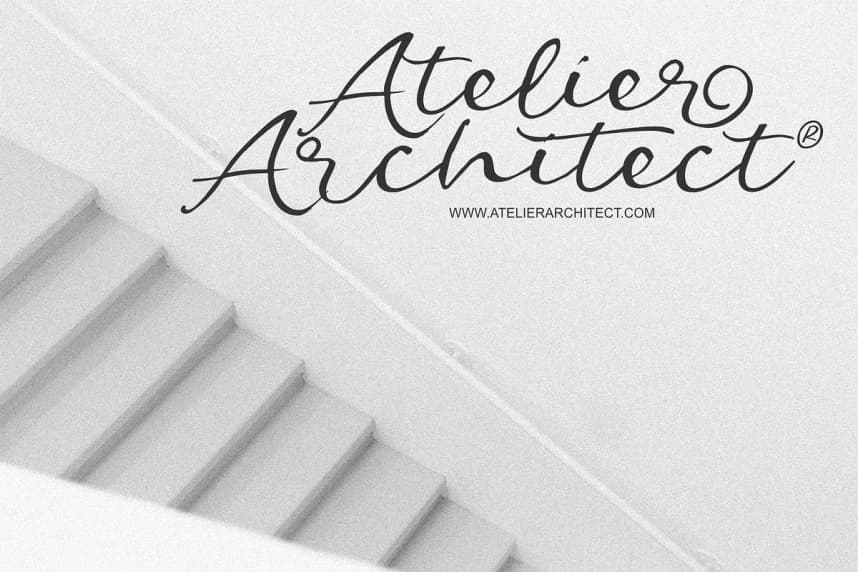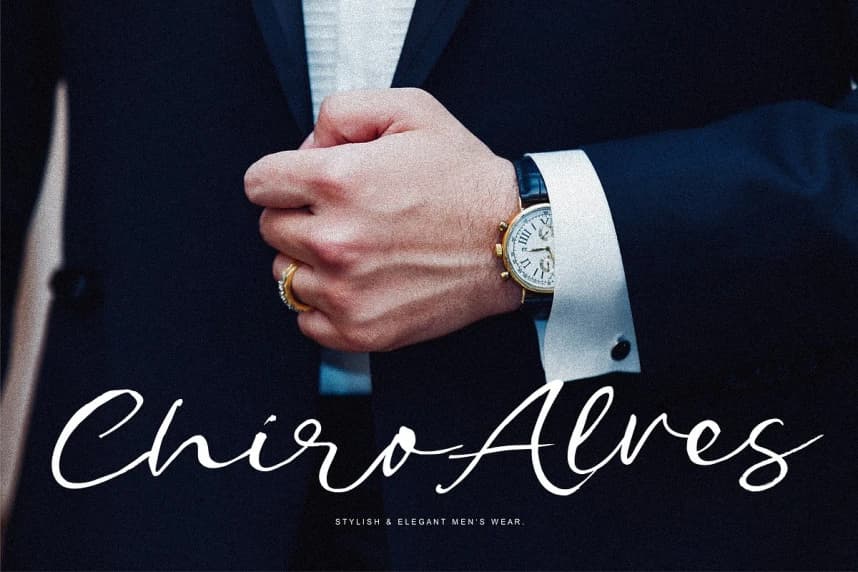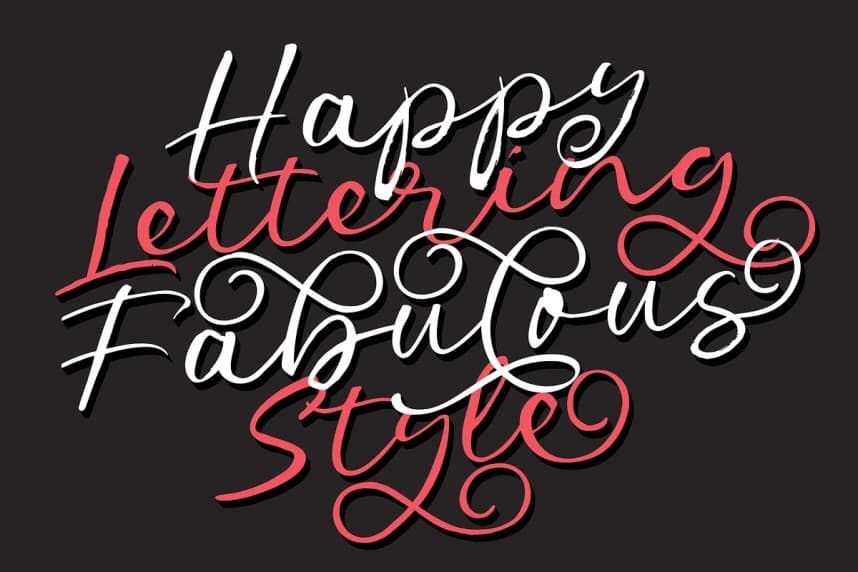
Autentic Brush Font
Autentic Brush Font is a Luxury Brush Calligraphy font created with a brush, giving it a rough, textured, and natural look, This elegant and decorative script font is perfect for fancy, romantic, and personalized design projects.